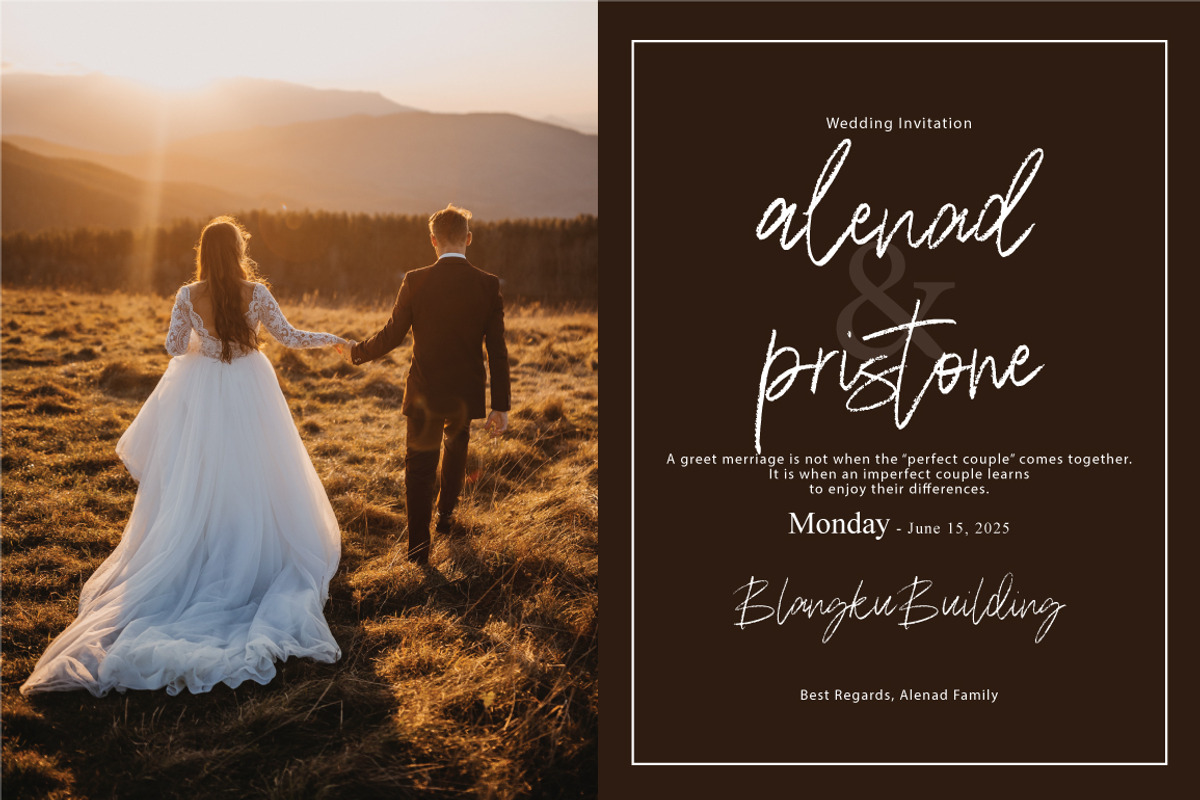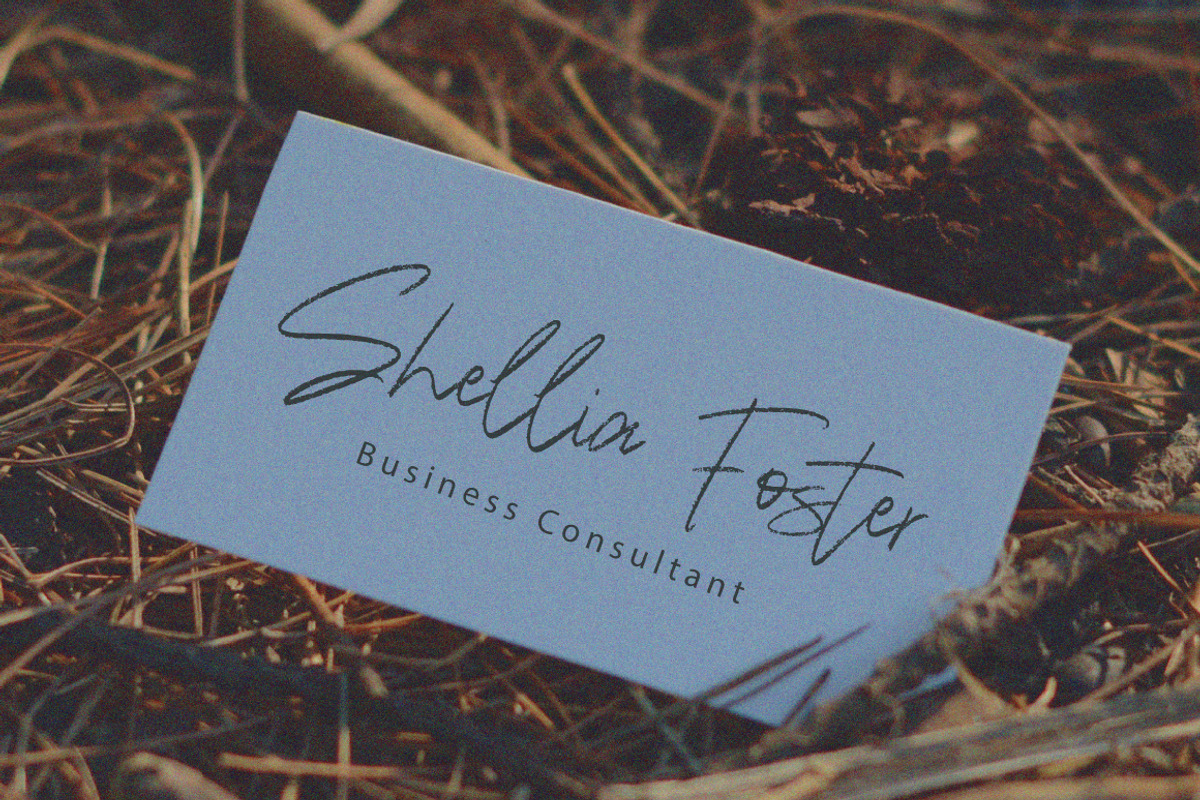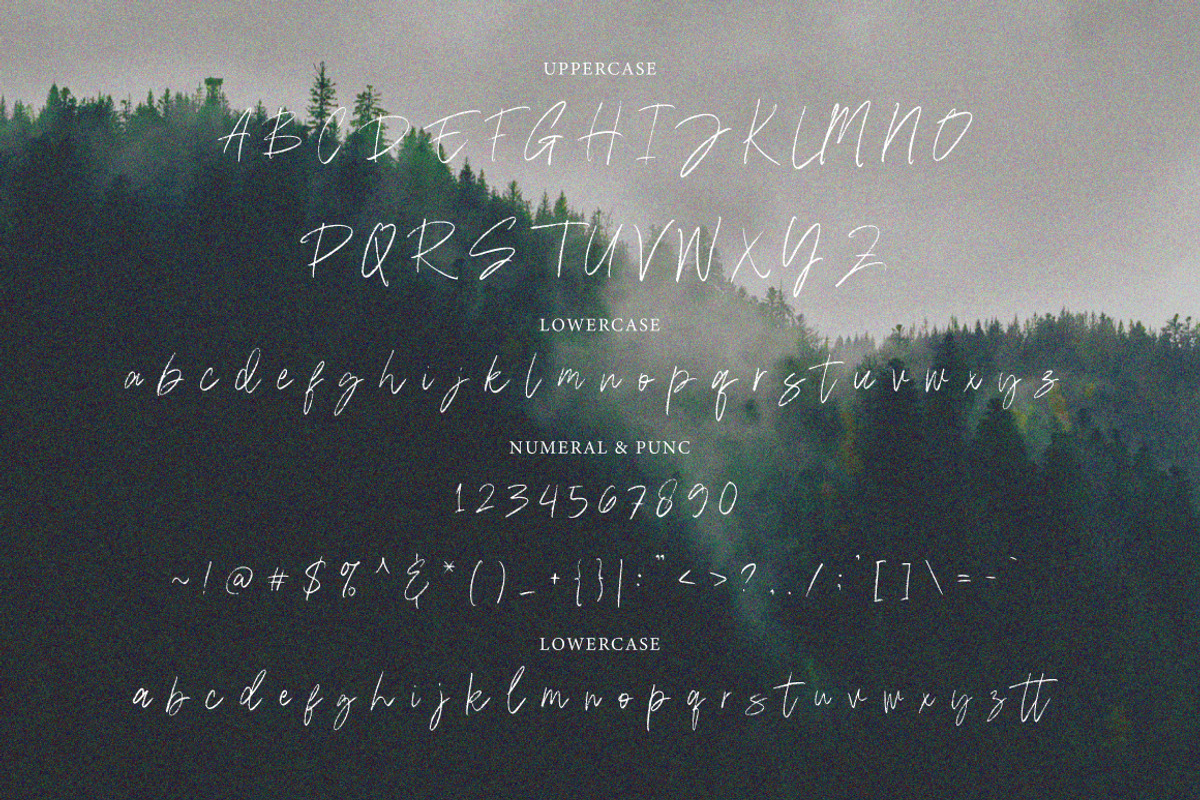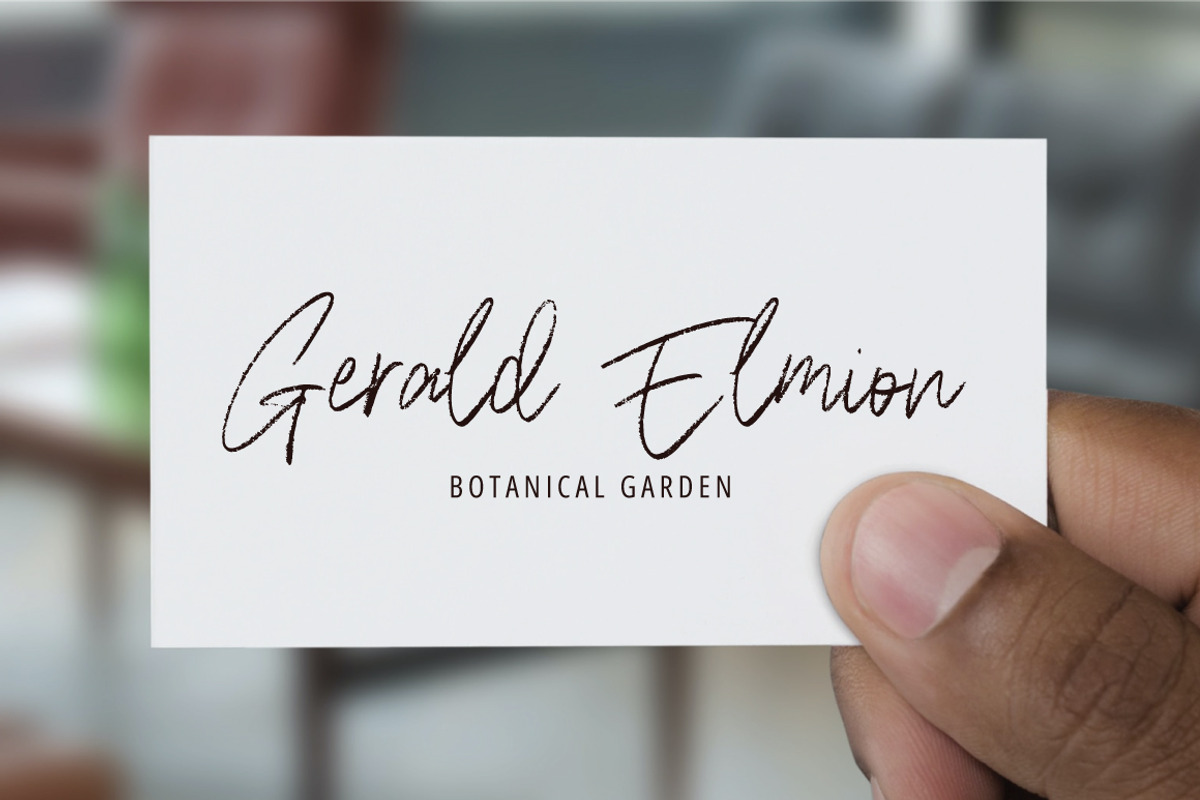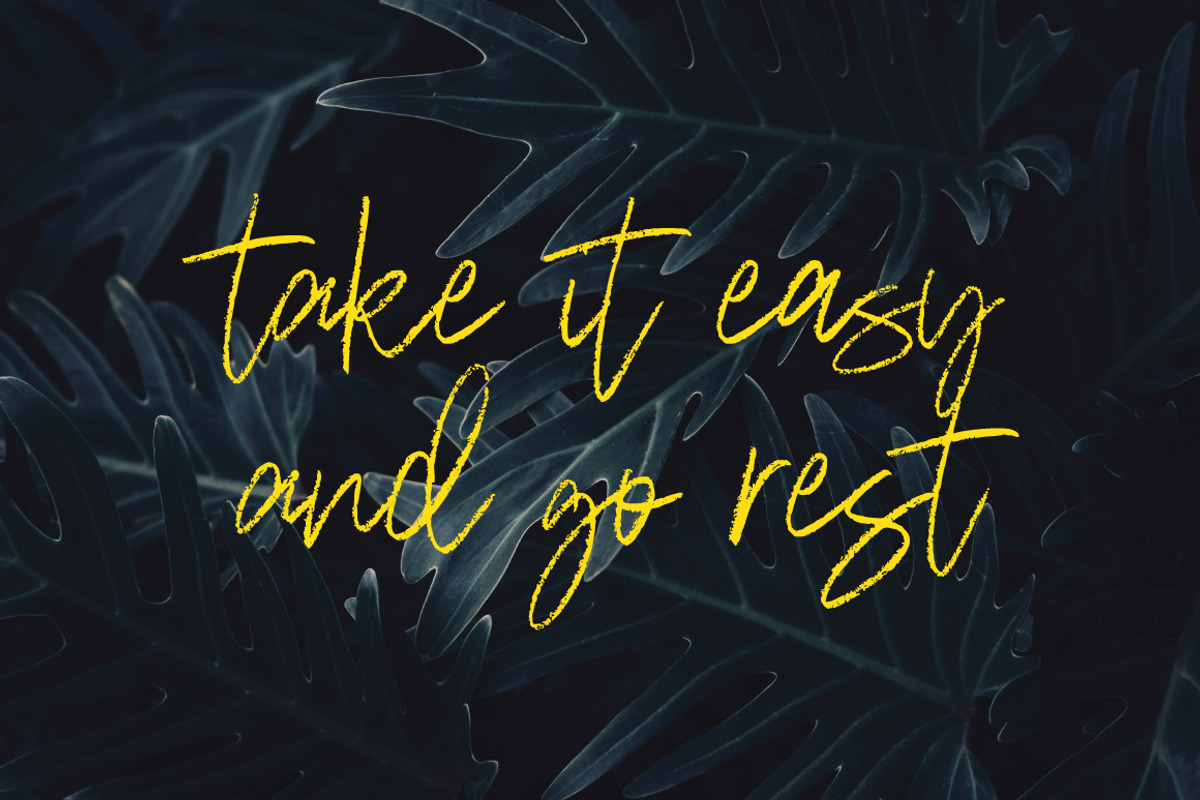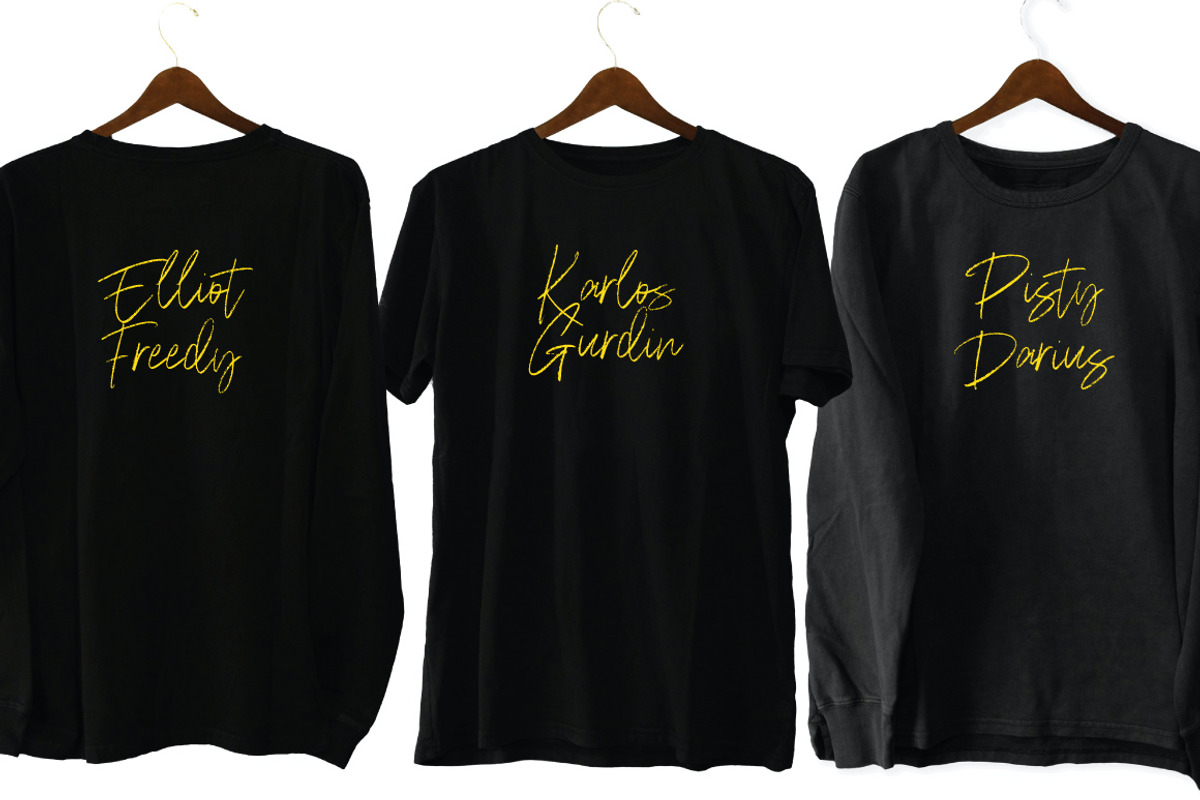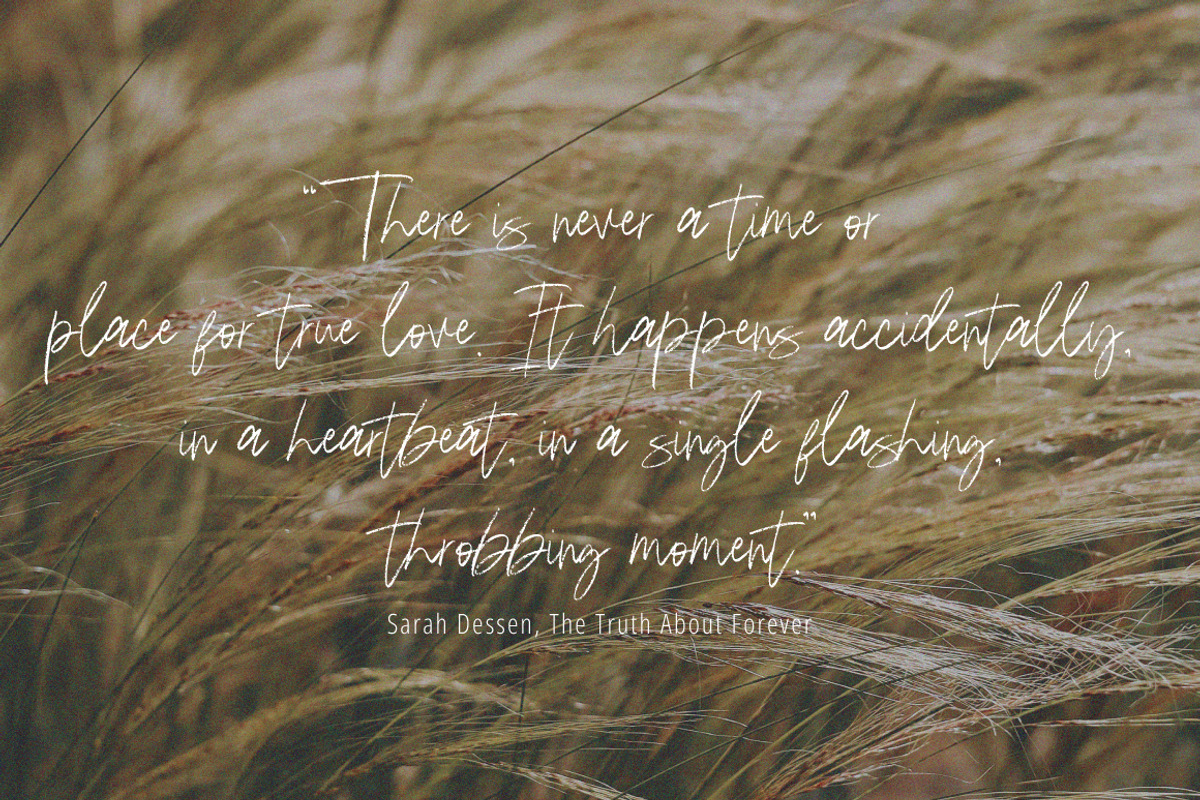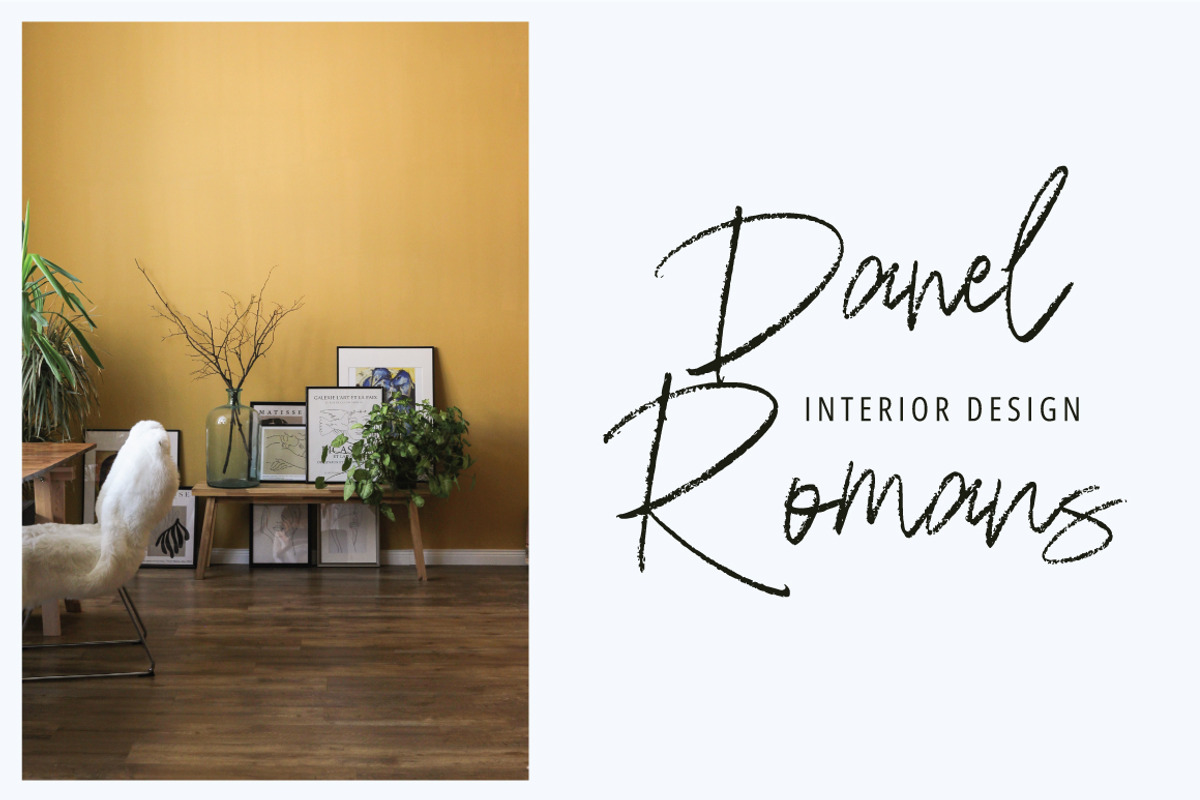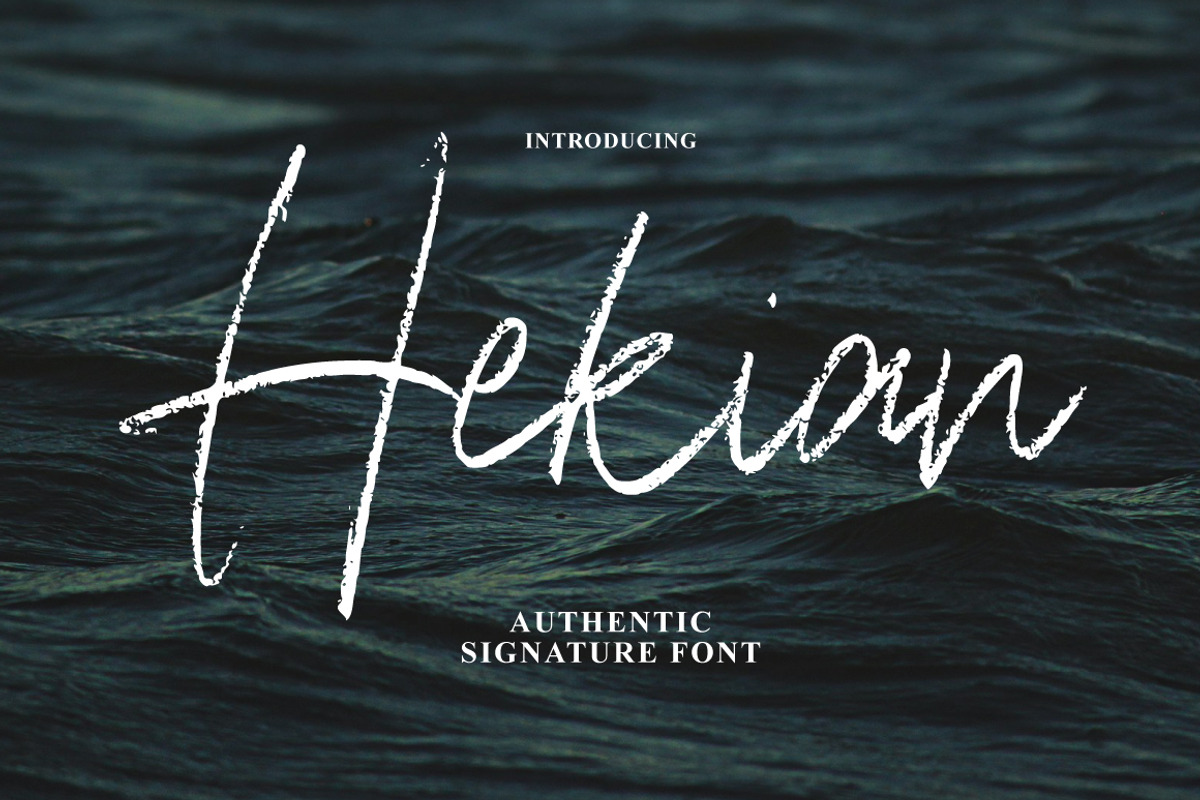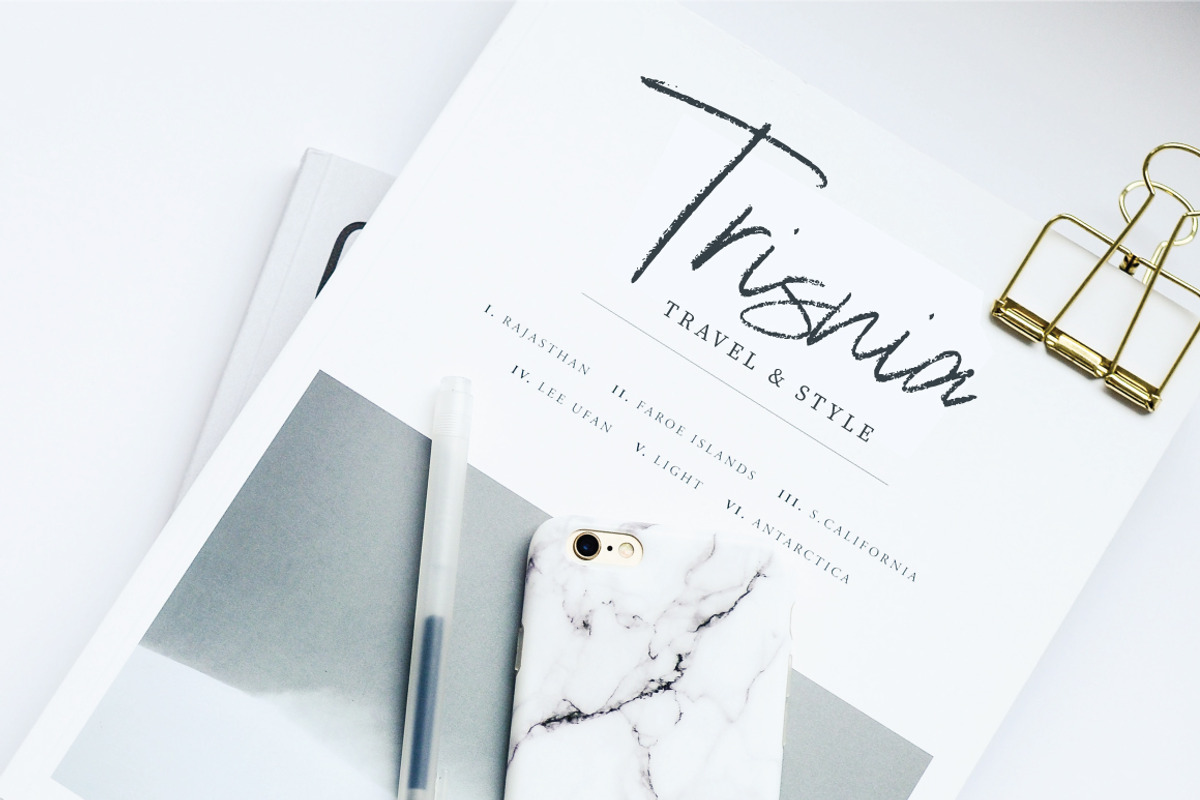
Hekian Signature Brush
Introducing
Hekian Signature Brush with a handmade calligraphy style, decorative characters and a dancing baseline! So beautiful on invitation like greeting cards, branding materials, business cards, quotes, posters, and more!!
Hekian Signature Brush Features :
Uppercase & Lowercase International Languange & Symbols Support Punctuation & Number PUA Unicode Range Standard Ligatures Discretionary Ligatures Stylistic Alternates Stylistic Set 01-07: